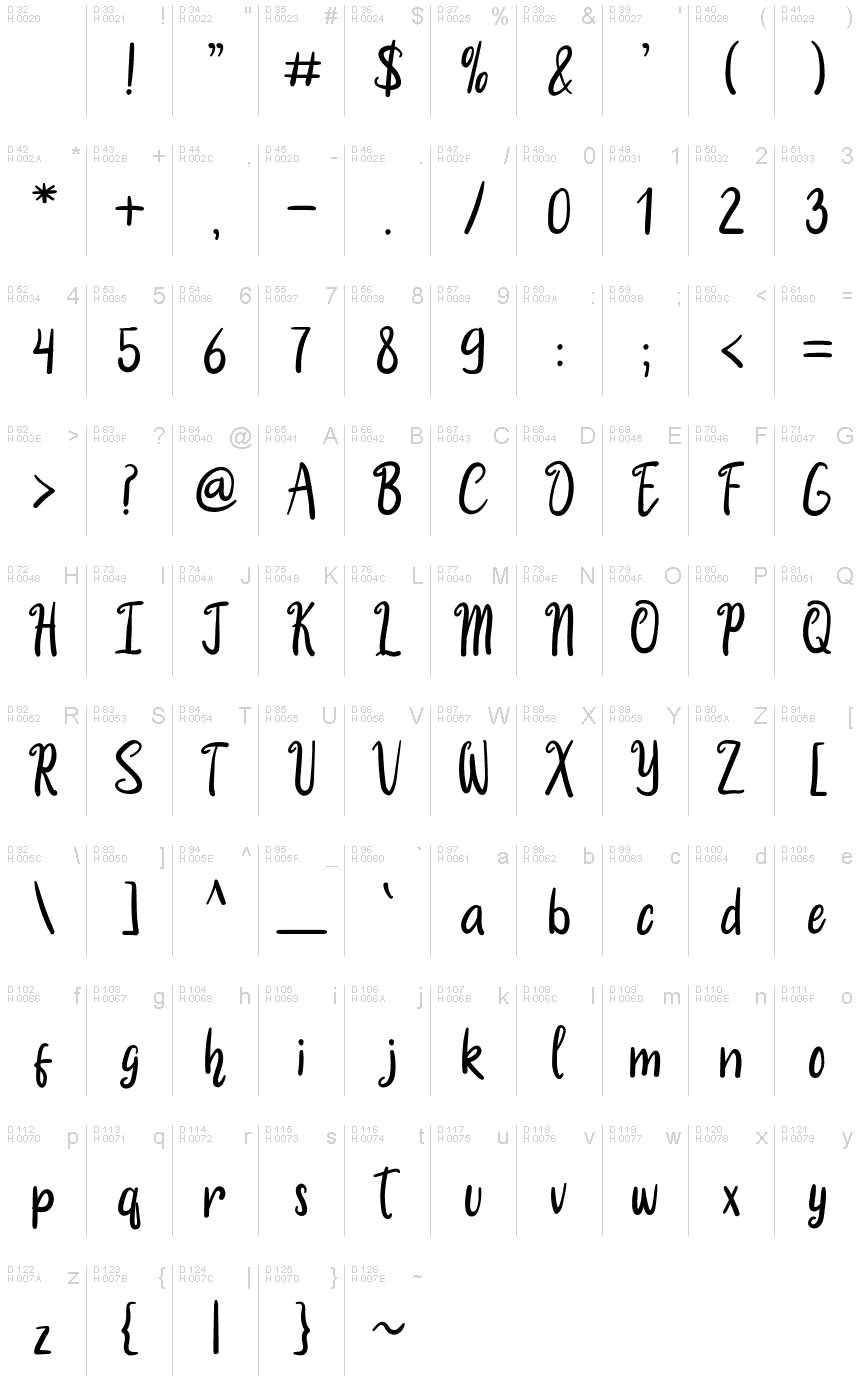
Cabatoyan
Designed by Denny Sutanto, Cabatoyan font is a playful display typeface that is the perfect choice for any Children's Design. It will elevate a wide range of design projects to the highest level, be it branding, headings, wedding designs, signatures, logos, labels, and much more! this font will be an incredible asset to your fonts library, as it has the potential to elevate any creation.